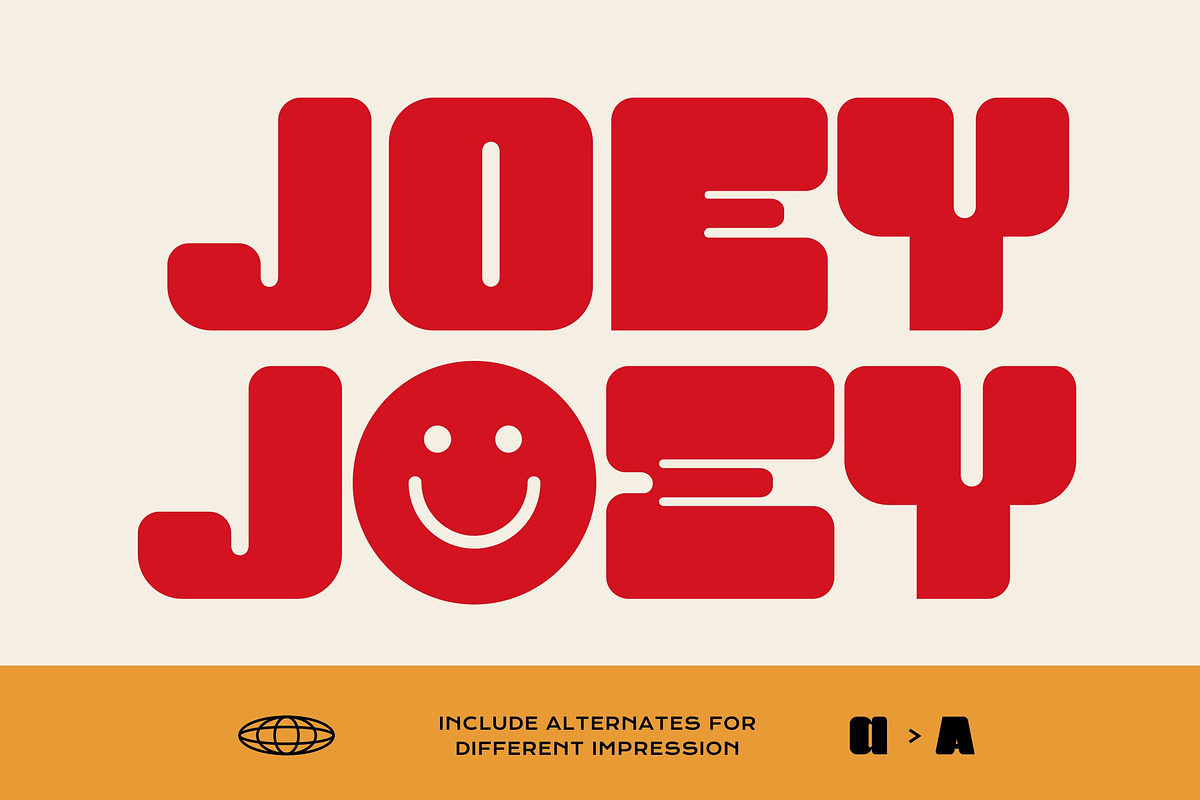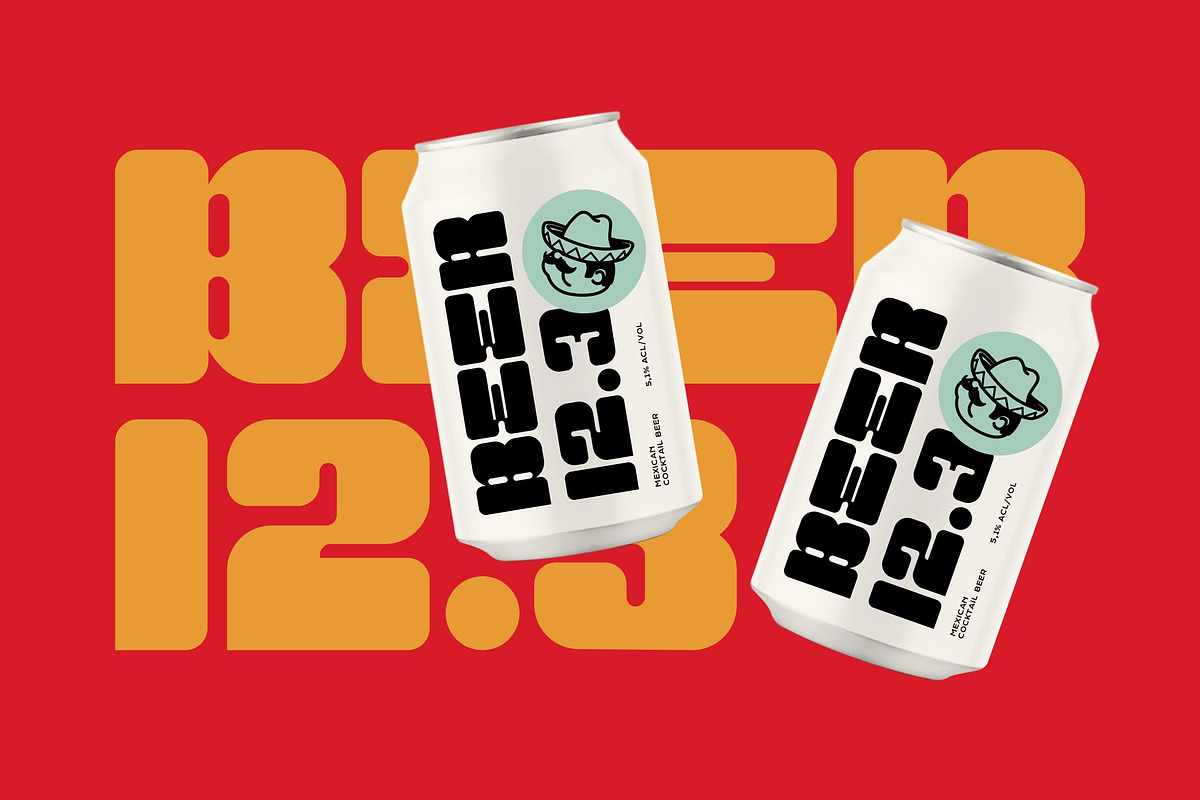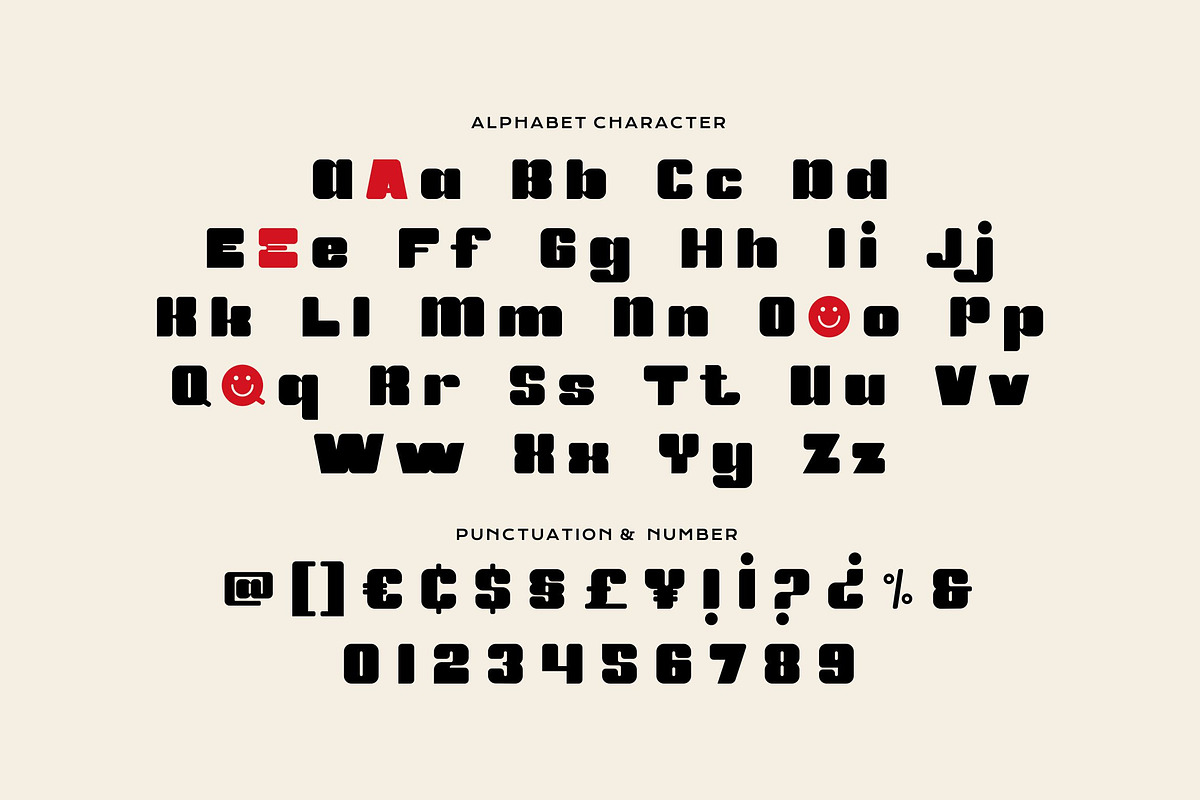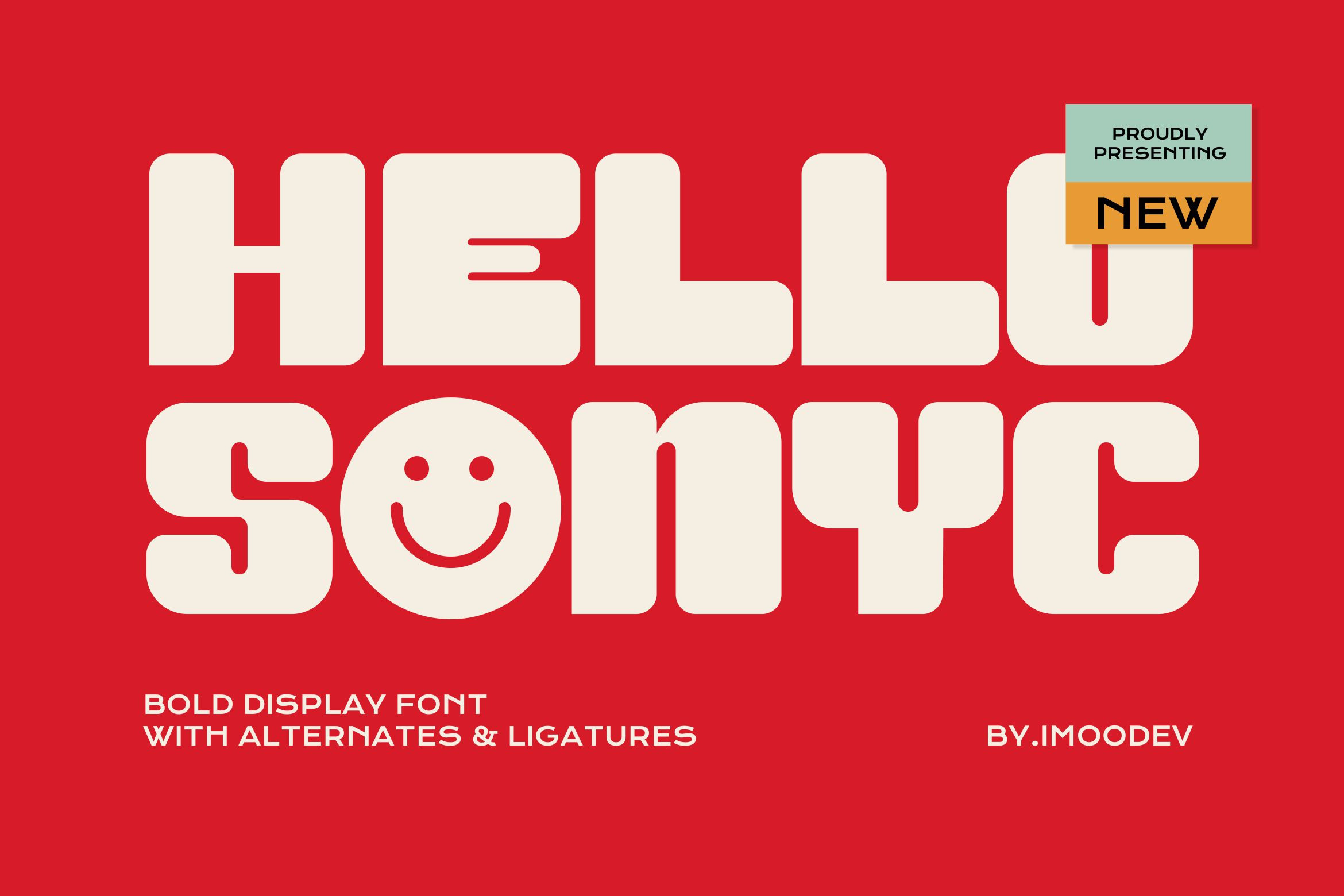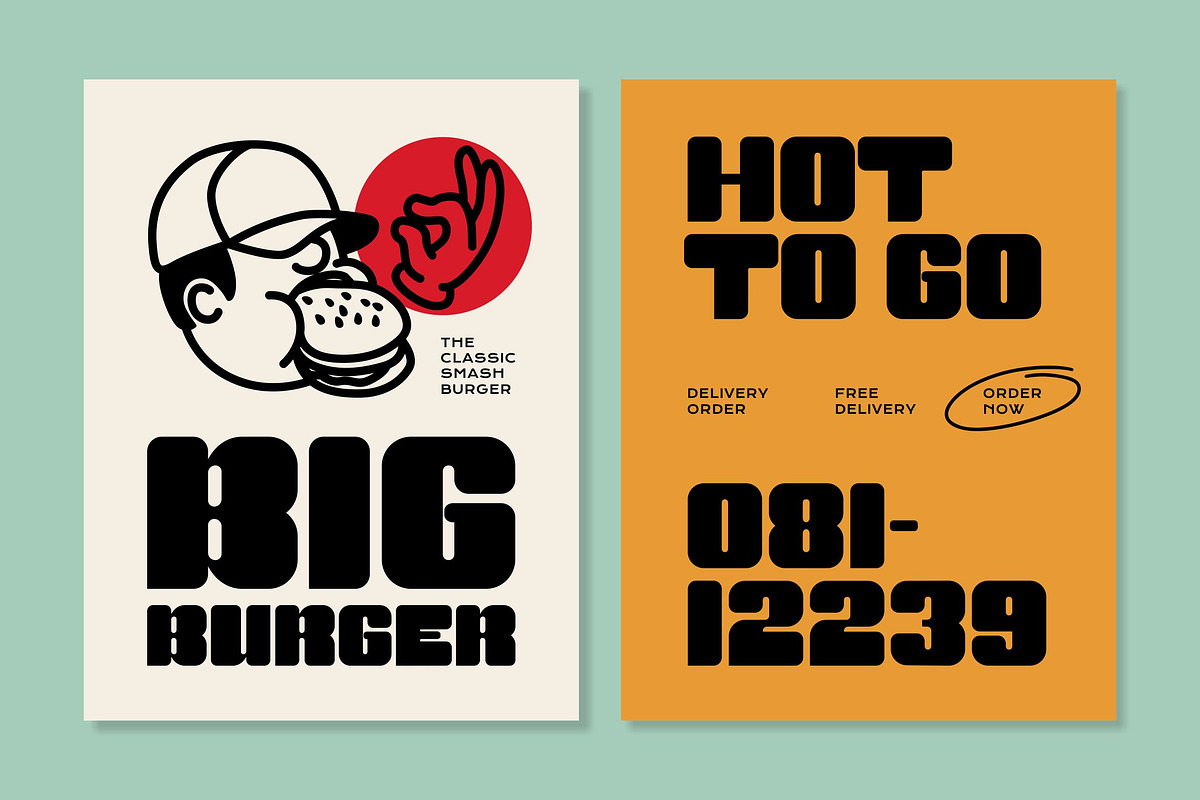
Hello Sonyc - Bold Playful Font
Hello Sonyc is a bold playful display font built from chunky modular shapes and ultra rounded corners. The letters sit between bubble type and geometric slabs, that fuses retro funk with modern modularity.
Its blocky shapes are softened by rounded corners, feature unique cutout details, geometric quirks, and alternate forms that keep the design fresh and versatile. Ligatures and stylistic alternates add extra character, while a few glyphs replace letters with fun icons (like a smiley face) for a whimsical twist.
Use it anywhere you need loud, lovable type: branding, posters, menus, stickers, greeting cards, children's branding, funky event posters or party invites, packaging, apparel, labels, social graphics, and headlines.
- Uppercase and Lowecase Characters.
- Numerals and Punctuations.
- Alternates and Ligatures.
- Multilingual Support.